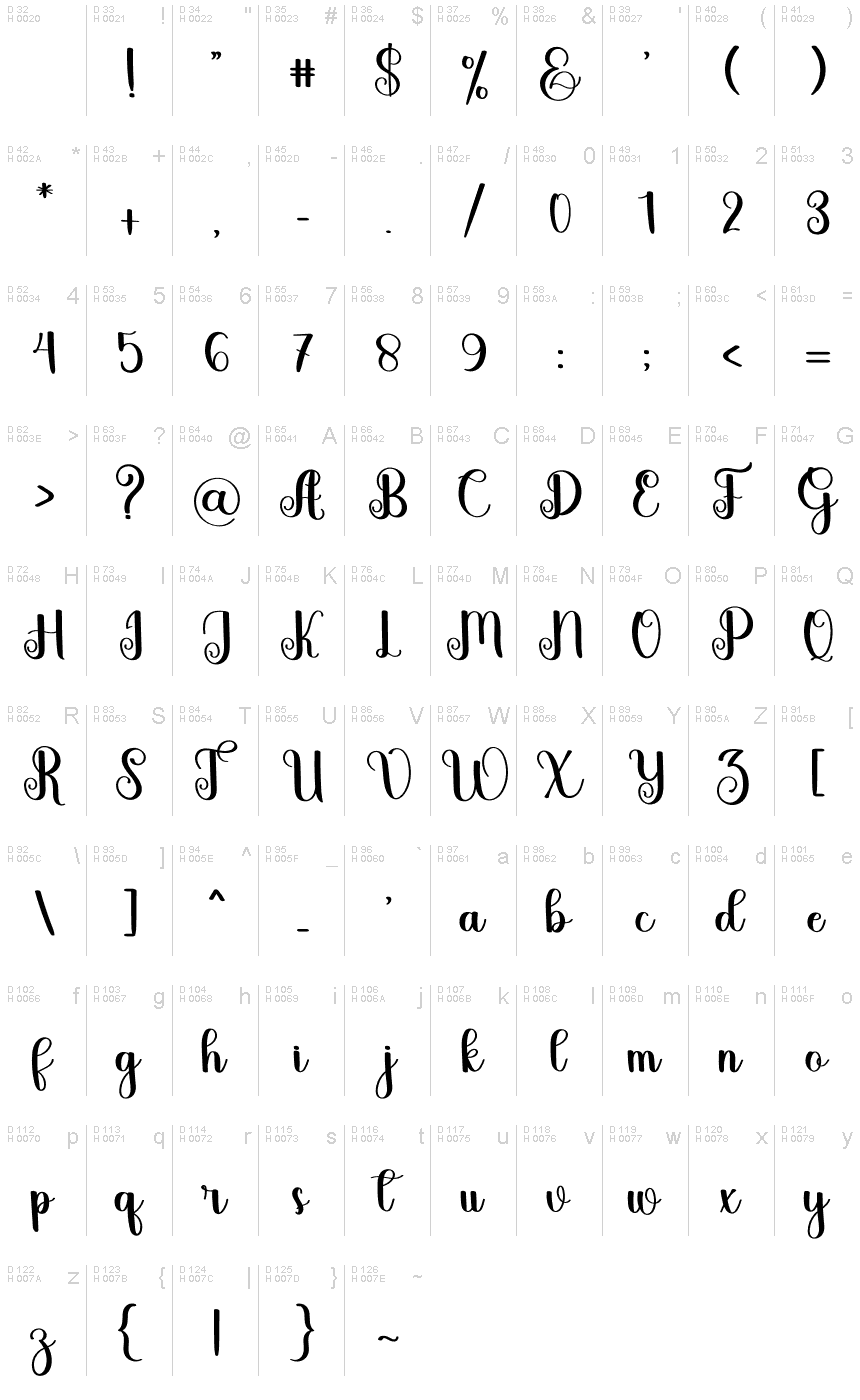
Mandala
Introducing Mandala, a captivating calligraphy font designed by FreshtypeINK. With its exquisite curls and graceful strokes, Mandala is perfect for adding an elegant touch to your projects. Its sophisticated style makes it ideal for wedding invitations, branding materials, and luxury packaging. The versatile semi-bold font weight of Mandala provides a balance between subtlety and impact, making it suitable for both headlines and body text. Whether you're designing an upscale restaurant menu or creating eye-catching social media graphics, Mandala will effortlessly elevate your designs with its timeless beauty.